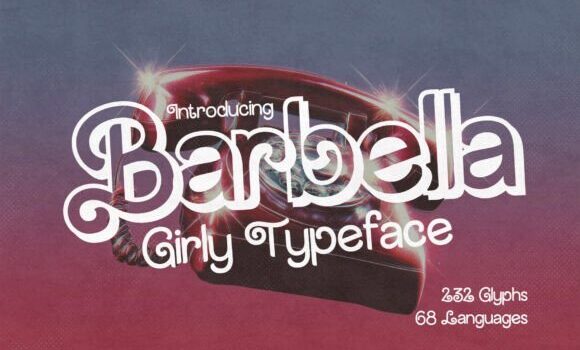
barbella
Barbella Regular Font – Free Download Introduction to Barbella Regular Font Barbella font is a display font with a playful, curly, and whimsical style. 📸 Preview Gallery 6 images 📌 Product Name Barbella Regular Font 👤 Author HipFonts 📂 Category